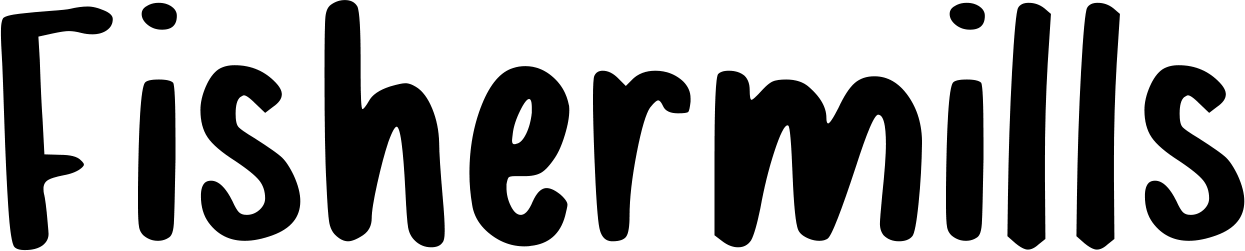
Fishermills Font
Fishermills is a cute and cordial handwriting font. It has a chill presence and its lettering is carefully created. It will be a great font choice for apparel prints, card designs, posters, books, social media posts, etc…
Fishermills is a cute and cordial handwriting font. It has a chill presence and its lettering is carefully created. It will be a great font choice for apparel prints, card designs, posters, books, social media posts, etc.
A font more laid back than a Sunday afternoon drinking lemonade, listening to Soundgarden (RIP)